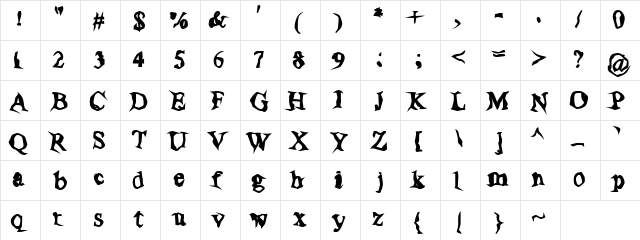
Poltergeist Thick Regular
Design Context for Poltergeist Thick Typeface
Poltergeist Thick is a composed and adaptable typeface that performs quietly and consistently across a wide range of design contexts.